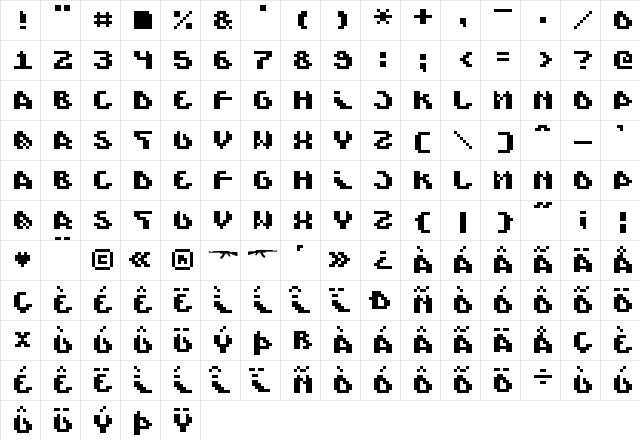
Scienide Regular Font Preview
Scienide Regular
Scienide Regular Font Details
| Foundry | :ck!: |
| Designer | :ck!: [freakyfonts] |
Design Context for Scienide Typeface
Scienide takes a measured approach to typography — its balanced proportions and neutral character make it a reliable workhorse for both digital and print work.